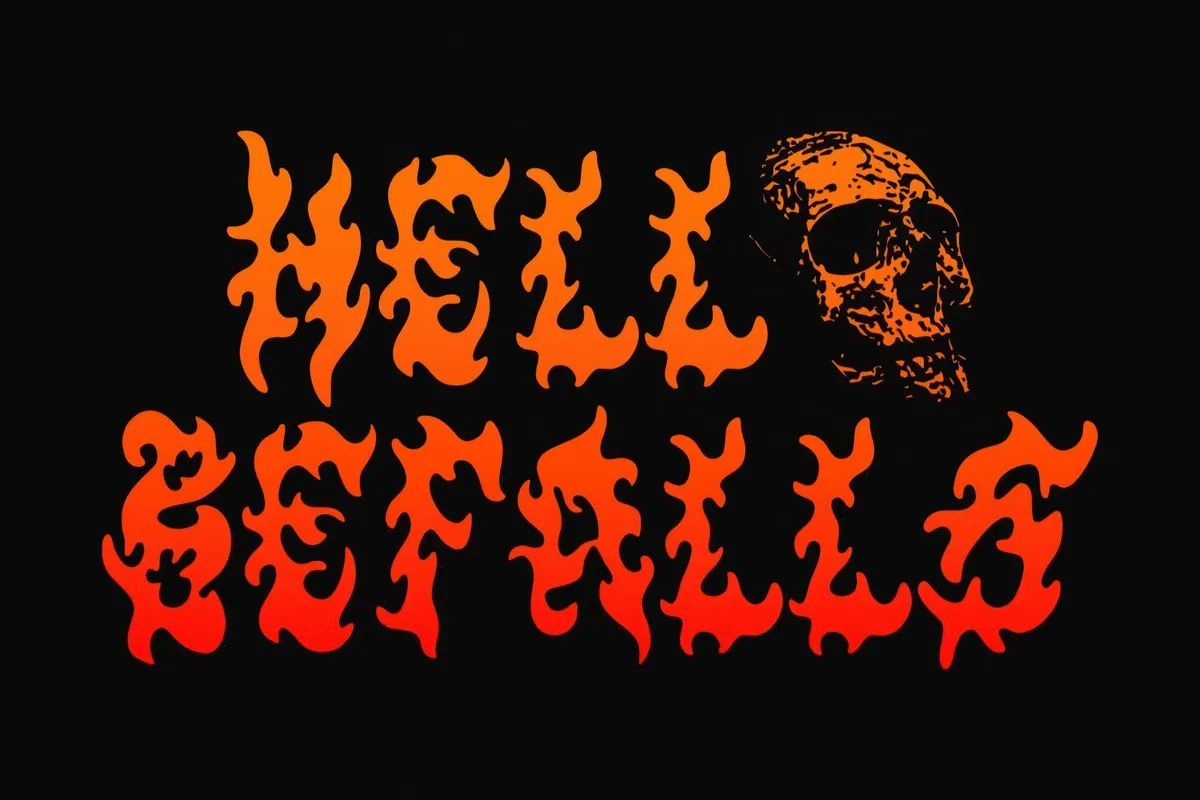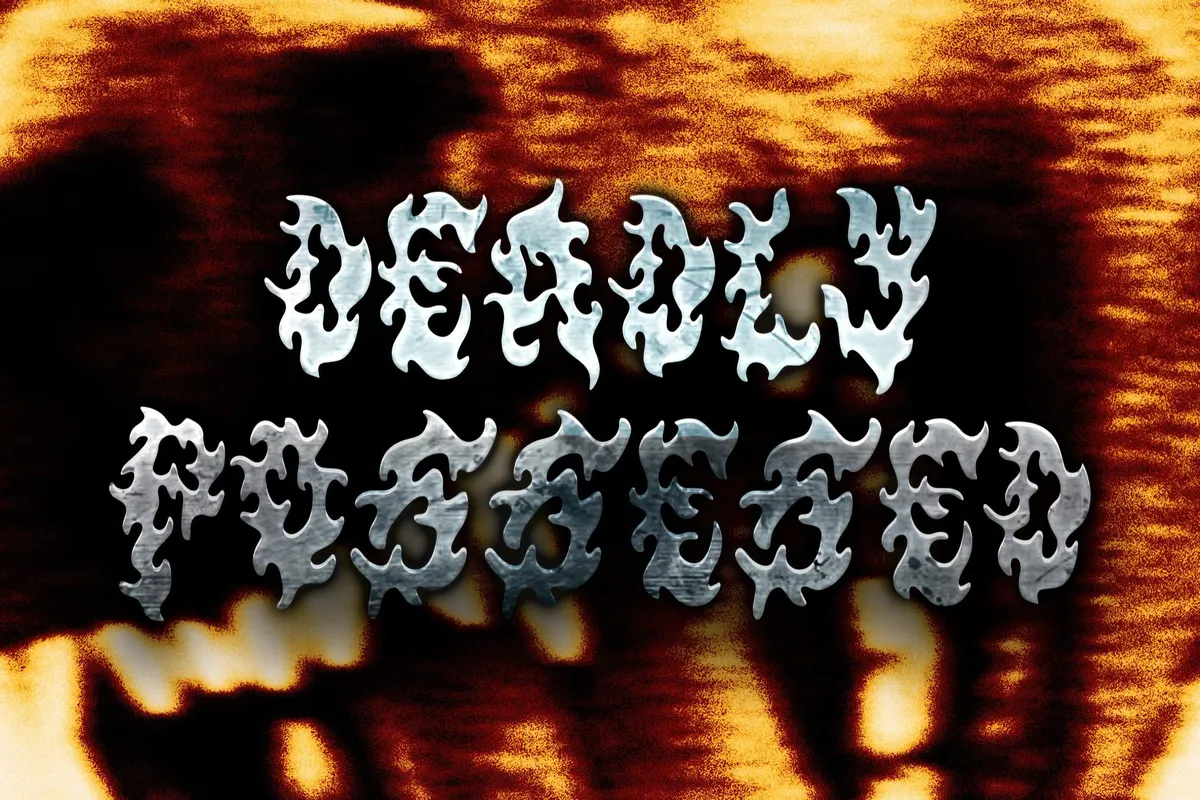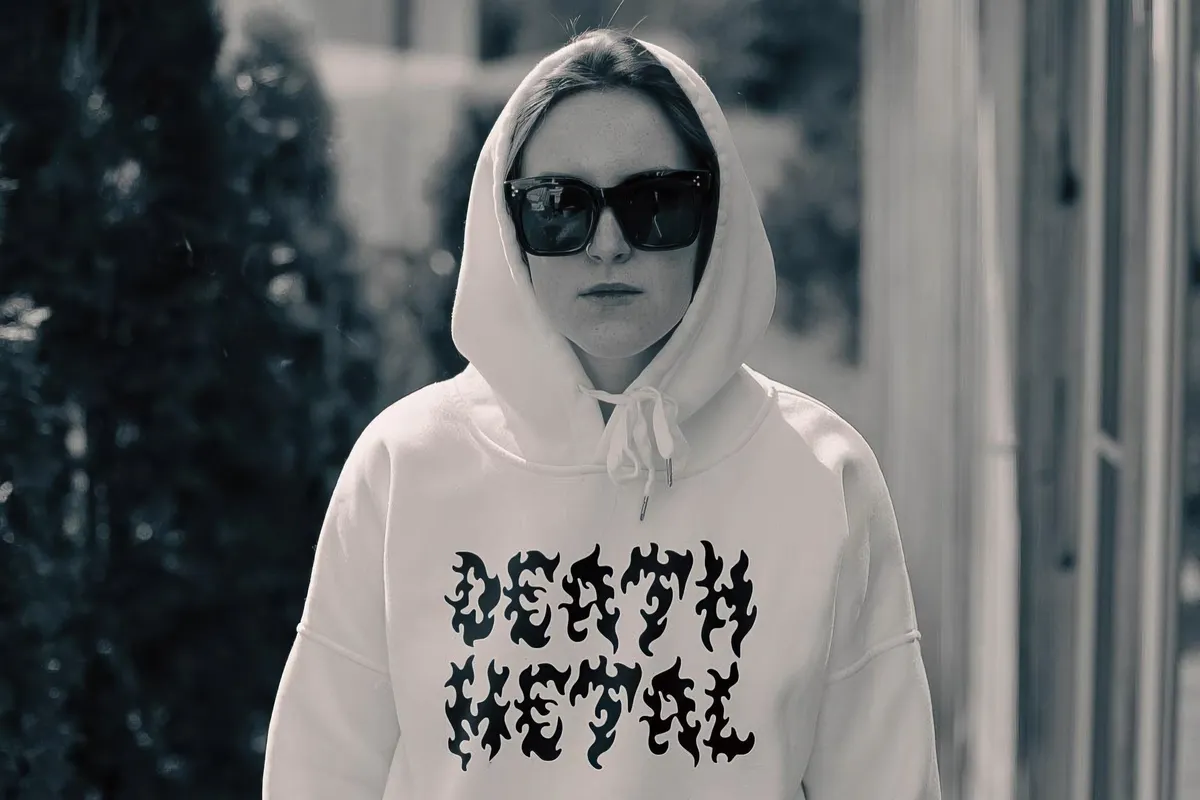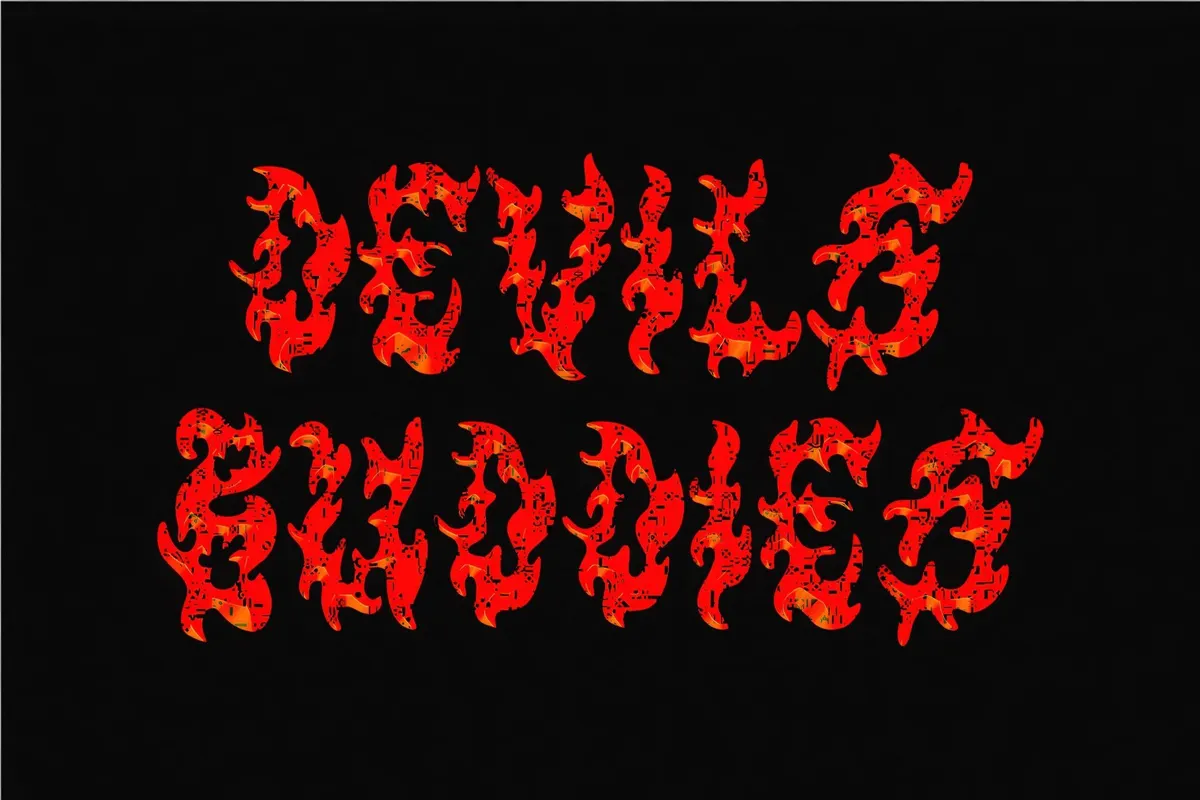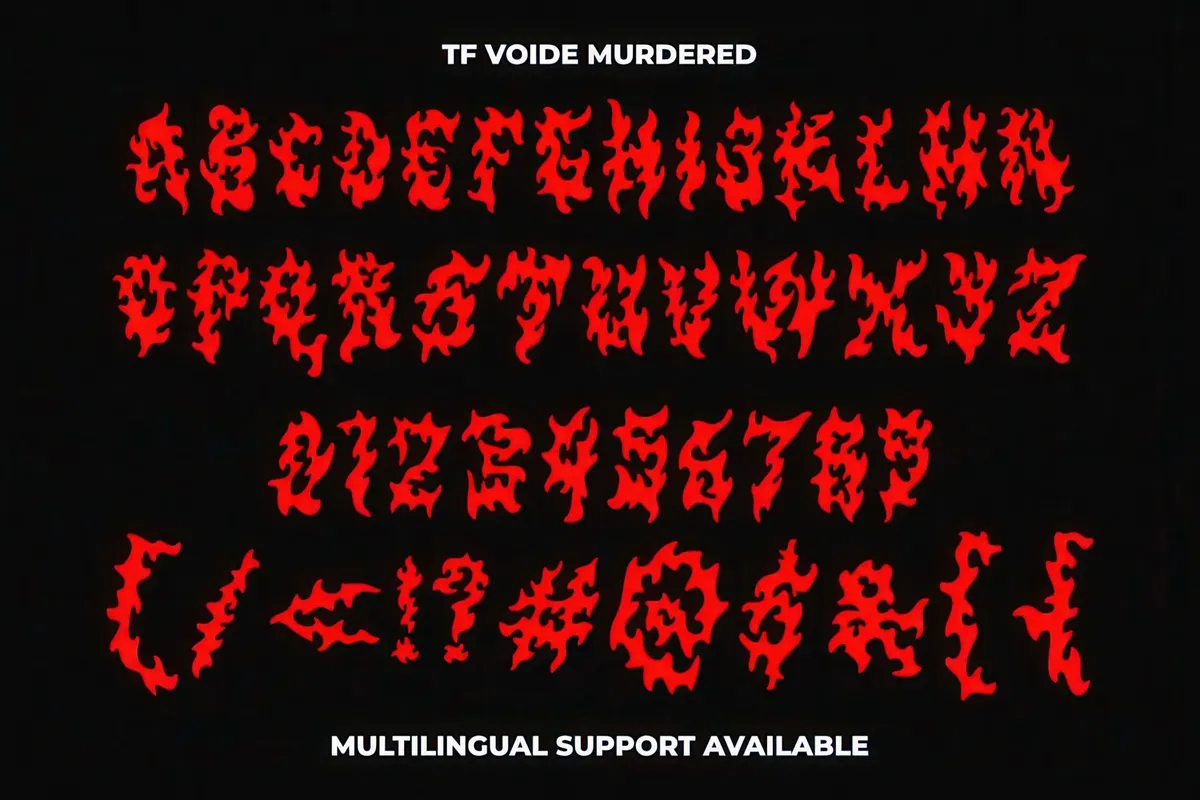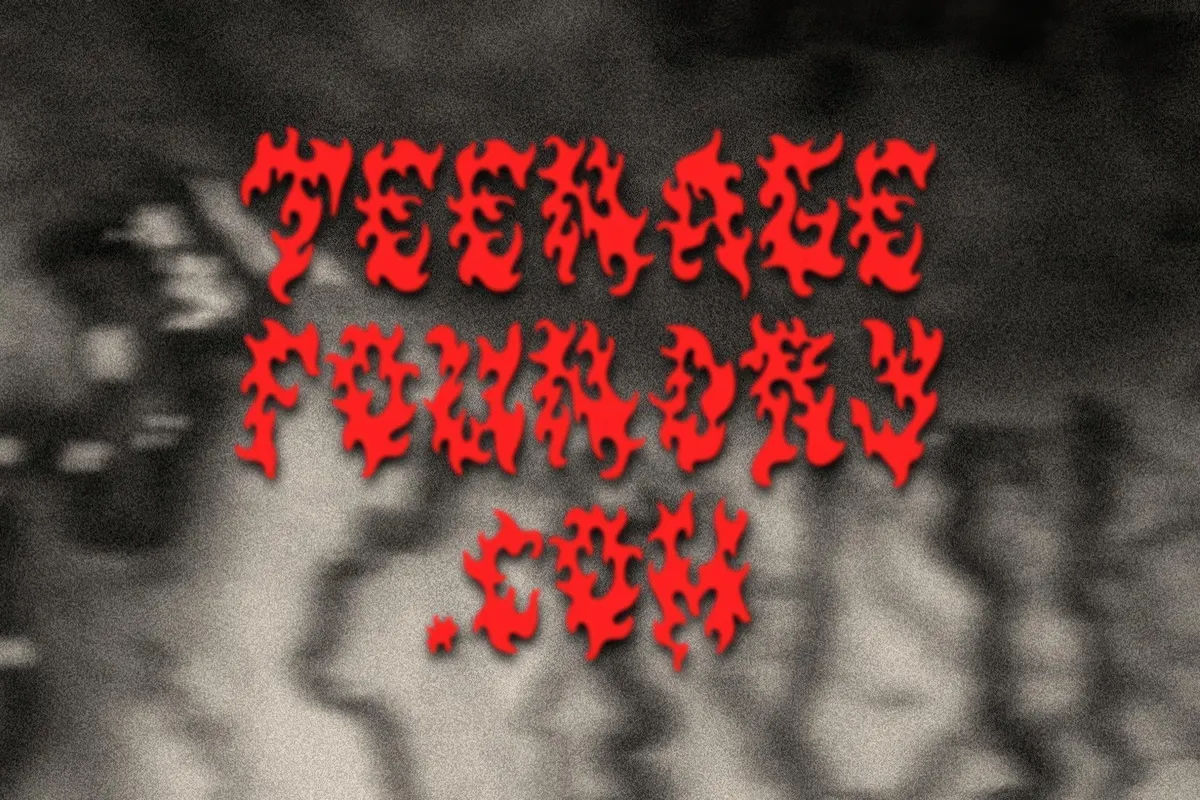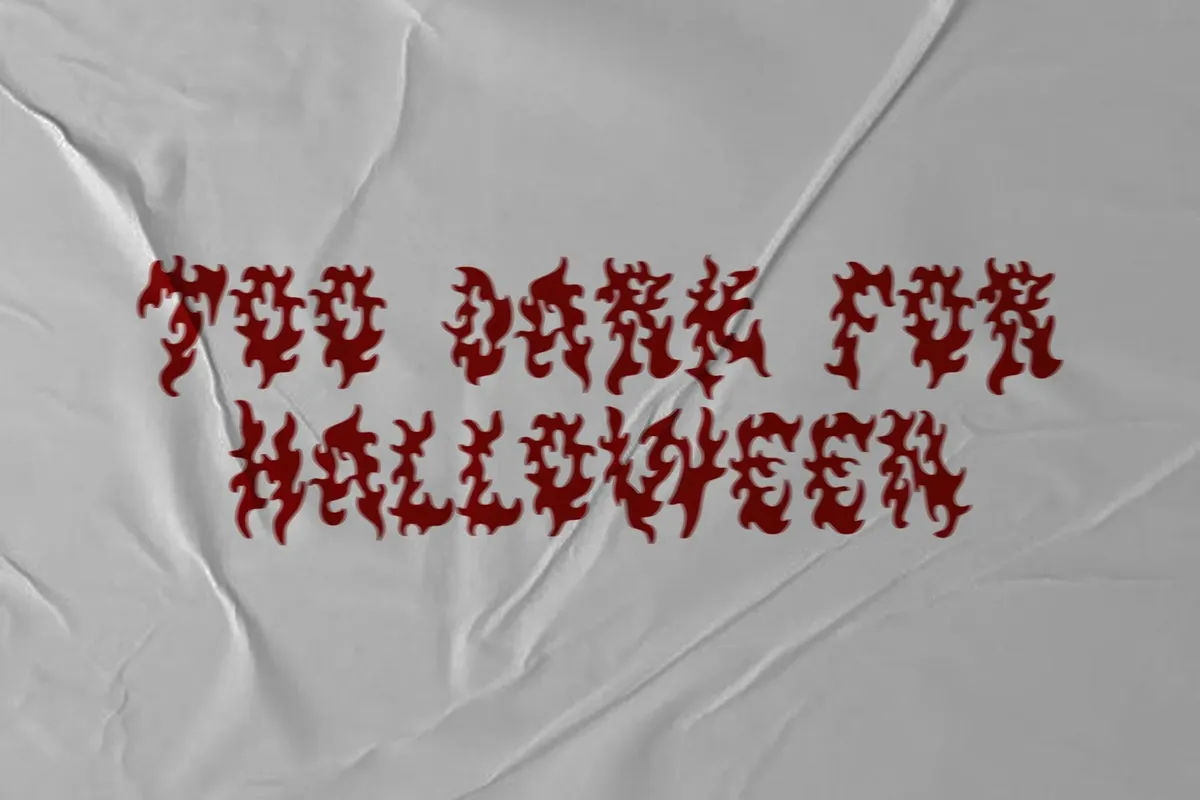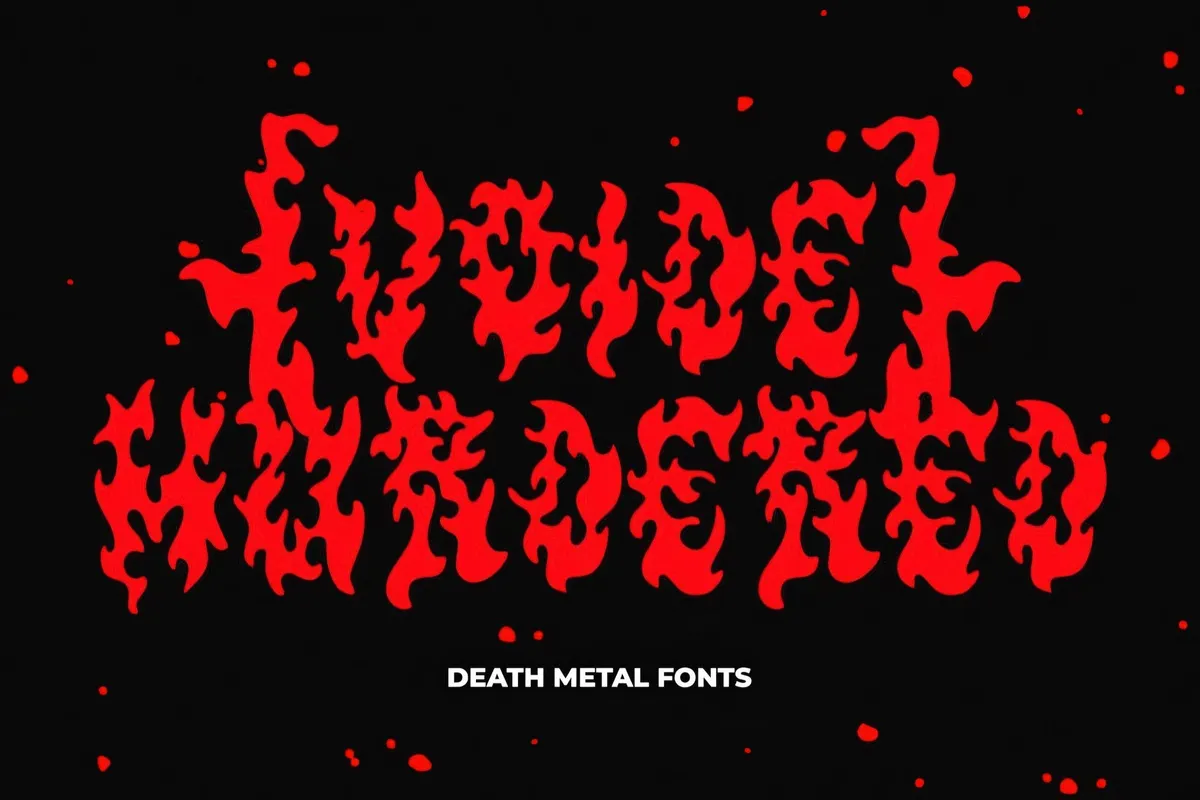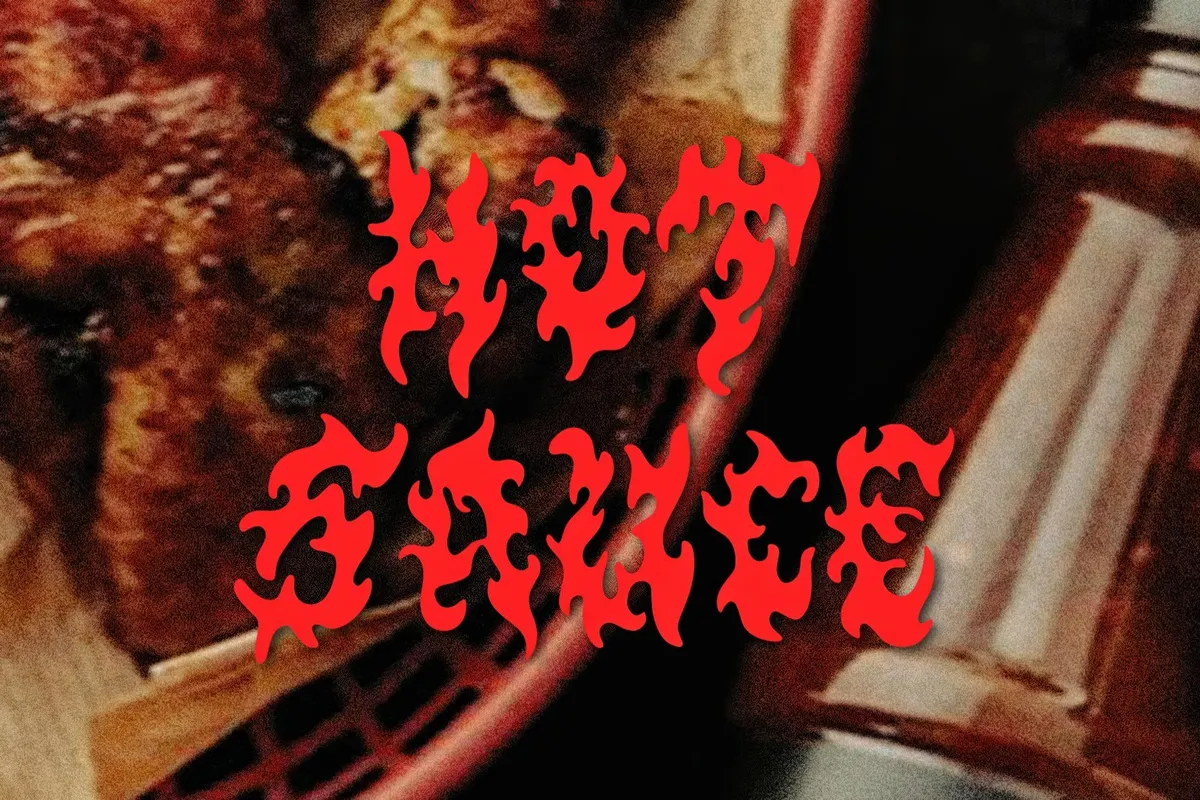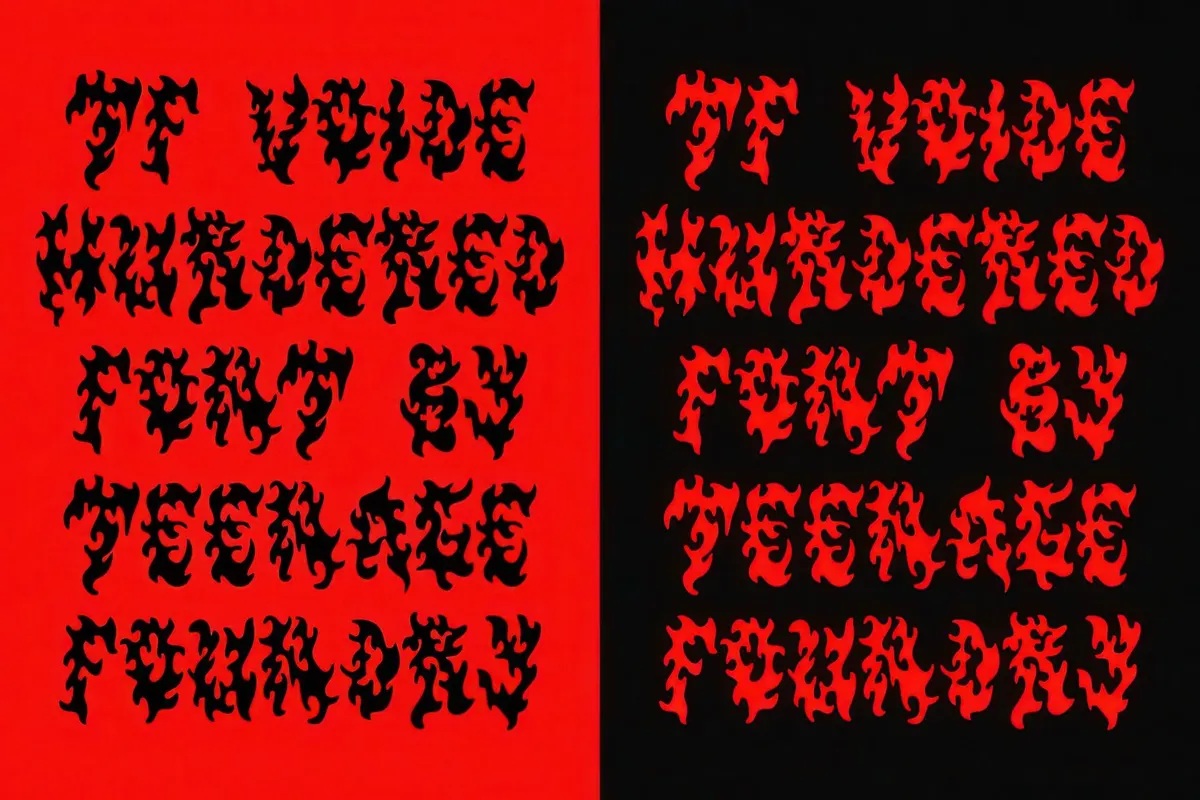
TF Voide Murdered Font
Hard Rock, Hallelujah! Long live the metal and deathcore! And long live Voide Murdered, a hardline font with grit and flame. Who knows, maybe it's destined to become an anarchist band's logo.
TF Voide Murdered features jagged edges, sharp contours, and intricate letterforms. That's how it exudes the ferocious brutality of hardcore music, which you can transfer to album covers, band logos, merchandise, tattoos, signages, branding, and more. It's got a set of aggressive characters — uppercase, numbers, punctuation, multilingual support — ready to gather and invoke Satan or whoever true metalheads worship.